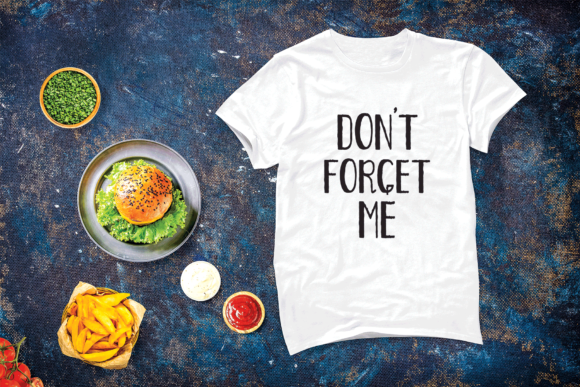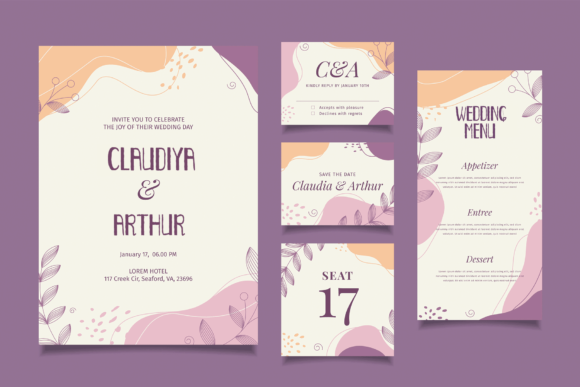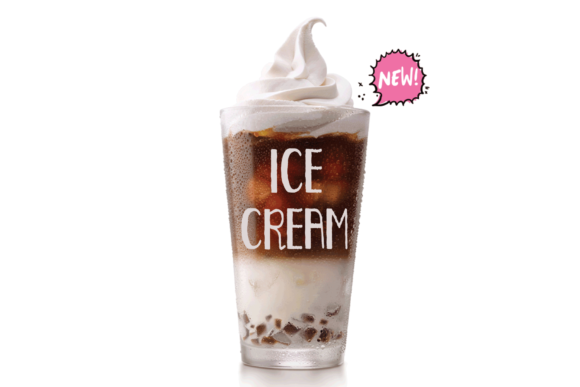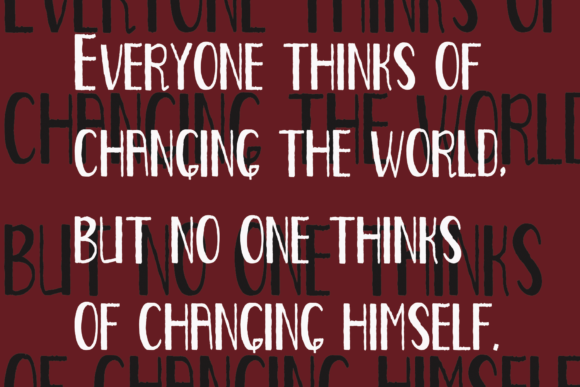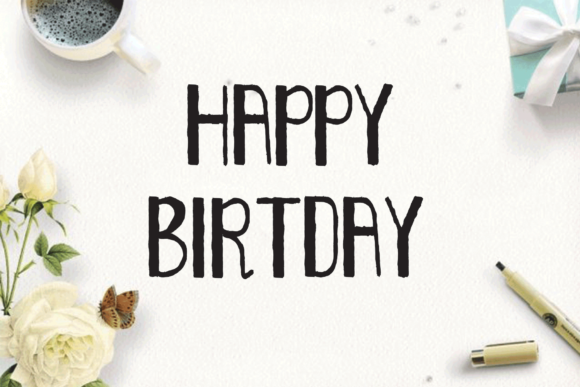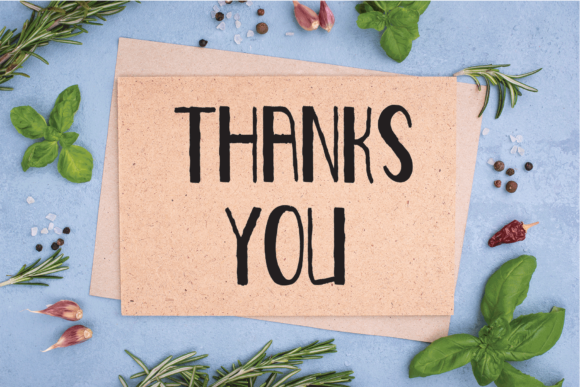
Introducing Blackpink Font: Elevate Your Designs with a Touch of Vintage Elegance
In the world of typography, fonts play a crucial role in conveying the tone and personality of a brand or design. With countless options available, finding the perfect font that stands out from the crowd can be a daunting task. However, if you’re looking for a font that exudes vintage charm and sophistication, look no further than Blackpink Font. This tall, vintage-styled display font is an incredibly versatile asset that can elevate any creation, regardless of the topic or industry.
The Unique Characteristics of Blackpink Font
Blackpink Font boasts a distinctive, tall, and elegant design that immediately captures attention. Its vintage flair is reminiscent of classic typography, evoking a sense of nostalgia and refinement. The font’s tall stature makes it perfect for headlines, titles, and display text, where you want to make a bold statement. The carefully crafted letterforms feature subtle nuances and intricate details, giving the font a unique personality that sets it apart from more generic fonts.
Why Blackpink Font is a Valuable Asset for Designers and Crafters
Whether you’re a designer, crafter, or DIY enthusiast, Blackpink Font offers a wide range of creative possibilities. Here are just a few reasons why this font is an essential addition to your font library:
- Versatility: Blackpink Font can be used across various design projects, from branding and advertising to packaging, posters, and social media graphics.
- Elegance: The font’s vintage charm adds a touch of sophistication to any design, making it perfect for high-end brands, luxury products, or creative projects that require a refined aesthetic.
- Legibility: Despite its ornate design, Blackpink Font remains highly legible, even in smaller sizes, ensuring that your message is conveyed clearly and effectively.
- Uniqueness: With its distinctive style, Blackpink Font helps you stand out from the crowd, giving your designs a competitive edge and making them more memorable.
How to Use Blackpink Font Effectively in Your Designs
To get the most out of Blackpink Font, consider the following tips:
- Pair it with contrasting fonts: Combine Blackpink Font with simpler, sans-serif fonts to create visual interest and hierarchy in your designs.
- Experiment with colors: The font’s vintage charm looks stunning in metallic colors, rich jewel tones, or classic black and white.
- Play with textures: Add depth and tactility to your designs by combining Blackpink Font with subtle textures or patterns.
- Use it sparingly: As a display font, Blackpink Font is best used in moderation. Reserve it for headlines, titles, or key messages to maximize its impact.
In conclusion, Blackpink Font is an exceptional addition to any designer’s or crafter’s font library. Its unique blend of vintage charm, elegance, and legibility makes it an incredibly versatile asset that can elevate any creation. Whether you’re working on a branding project, crafting a poster, or designing social media graphics, Blackpink Font is sure to make a lasting impression. So why wait? Get creative with Blackpink Font today and discover the power of typography in your designs!